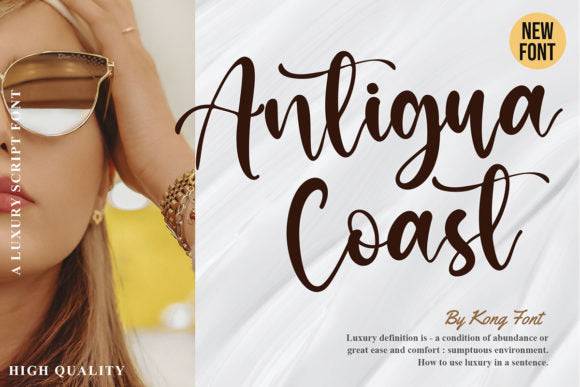
Antigua Coast Font for Cricut, Silhouette and Printable Designs
This digital product features Antigua Coast Font, a modern script typeface optimized for crafting applications. As a font entity, it balances graceful letterforms with digital precision, ensuring smooth performance in cutting software and printable templates alike. In addition to its elegance, this font is designed to work seamlessly alongside other creative assets, such as the baltic bodden font for crafting. Its versatility makes it a favorite among designers looking to elevate their projects with unique typography. Whether used for invitations, signage, or branding, Antigua Coast Font brings a touch of sophistication to every design.
Whether you're designing custom T-shirts, wall art, mugs, or stationery, this font is engineered to deliver charm, readability, and production-friendly results with minimal cleanup required.
- Craft-machine friendly with smooth curves
- Elegant but easy to read for small text